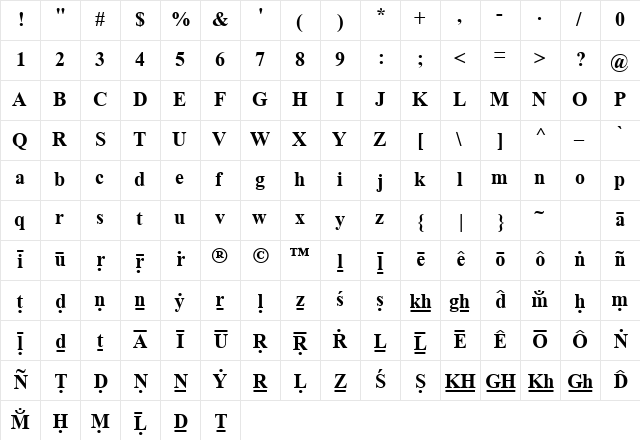
SD1-TTSurekh Bold
Design Context for SD1-TTSurekh Typeface
SD1-TTSurekh offers clean, dependable letterforms without strong stylistic allegiance, making it a practical choice for designers who need flexibility. Its bold stroke weight gives it real presence on the page.